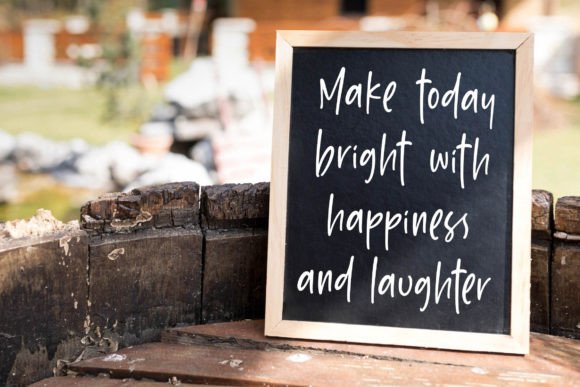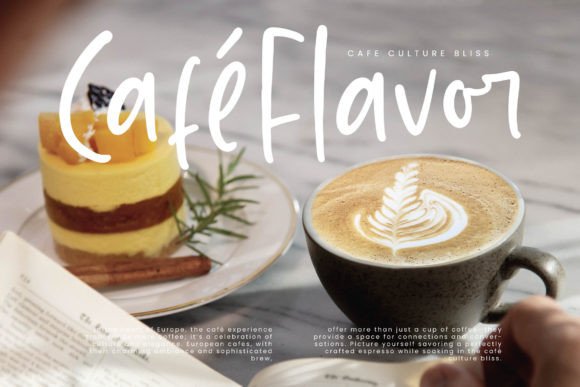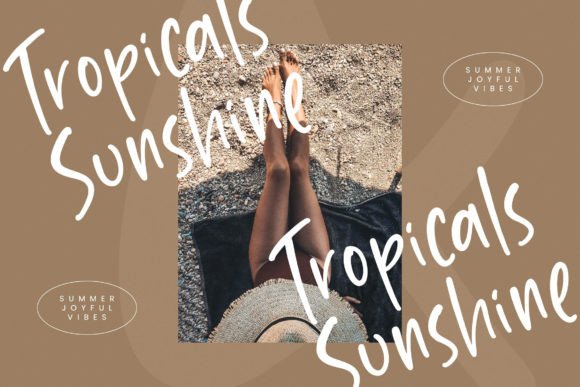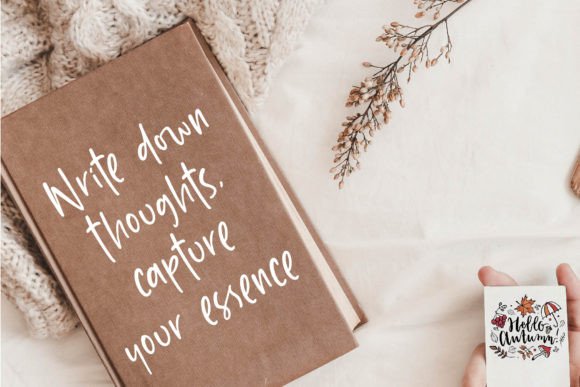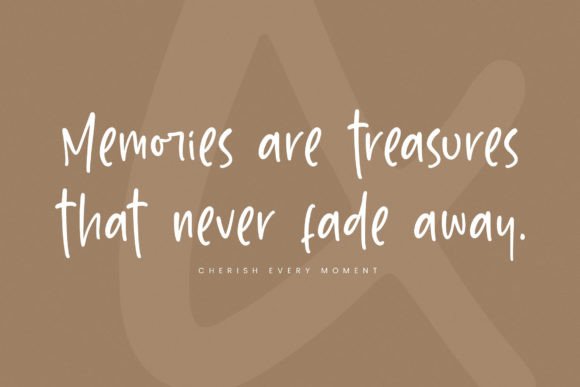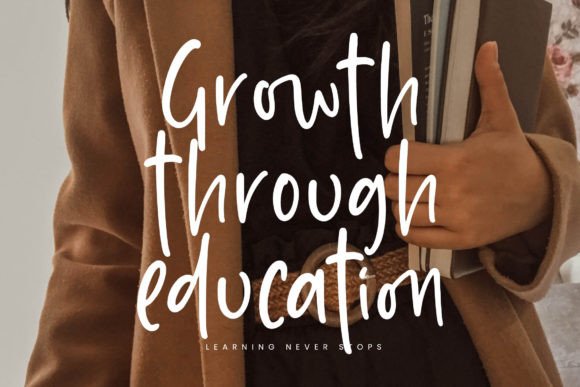
Introduction to Pearlight Notespage Font
As a designer, there’s nothing quite like the thrill of landing on the perfect font for a project. You’ve poured over countless options, and finally, you stumble upon that elusive combination of style and sophistication. For me, that moment happened when I discovered the Pearlight Notespage Font – a stunning handwritten font that adds a touch of elegance to any design.
Whether you’re working on a luxury brand’s logo, a bespoke invitation card, or a photography project, the Pearlight Notespage Font is a valuable addition to your design arsenal. With its high-quality, free download option and transparent background, you can seamlessly integrate it into your creative project. This versatile font is perfect for designers seeking a premium taste and a unique touch in their work.
Get ready to elevate your designs with the Pearlight Notespage Font – a game-changing resource that’s sure to leave a lasting impression on your clients and audience alike.
Key Features of Pearlight Notespage Font
- Features a unique and elegant design style, making it perfect for various creative projects, including digital art and print materials.
- Includes a range of font styles and weights, providing flexibility and versatility in design applications.
Honest Review: Pearlight Notespage Font
I recently stumbled upon the Pearlight Notespage Font while searching for a unique design resource for a creative project. The font’s free download and high quality immediately caught my attention.
- ✨ Unique and elegant design style
- ⚠️ Limited font weights and styles
- ⚠️ Not ideal for large blocks of text, as it can be difficult to read
Overall, I’m impressed with the Pearlight Notespage Font. While it may not be suitable for every design project, it’s perfect for adding a touch of elegance and sophistication to a creative project. The font’s high quality and transparent background make it a valuable resource for designers looking for a unique design element.
How to Use Pearlight Notespage Font
The Pearlight Notespage Font is a high-quality, free download that can elevate your creative project with its unique design style. This versatile font features a transparent background, making it perfect for various design applications.
Tips for Getting the Most Out of Pearlight Notespage Font
Experiment with different font sizes and styles to achieve the desired effect in your design. Combine the Pearlight Notespage Font with other design elements to create a visually appealing composition.
The Pearlight Notespage Font is ideal for various design projects, including:
- Print design and publishing
Alternatives to Pearlight Notespage Font
Pacifico is a beautiful, elegant script font that is perfect for creative projects that require a touch of sophistication. It’s great for use in logos, invitations, and other design elements where a high-quality, handwritten font is needed. Pacifico is a free download and can be used on both personal and commercial projects.
When compared to Pearlight Notespage Font, Pacifico has a more refined and polished look, making it ideal for projects that require a level of sophistication. While Pearlight Notespage Font has a more playful and whimsical feel, Pacifico is better suited for more formal and elegant designs.
Great Vibes is a modern and stylish script font that is perfect for designers looking for a high-quality, free download. It’s great for use in logos, posters, and other design elements where a creative and playful font is needed. Great Vibes has a transparent background, making it easy to use on any design resource.
When compared to Pearlight Notespage Font, Great Vibes has a more modern and edgy feel, making it ideal for projects that require a level of creativity and playfulness. While Pearlight Notespage Font has a more nostalgic and retro feel, Great Vibes is better suited for more contemporary and trendy designs.
Q: What is the recommended font size for the Pearlight Notespage Font?
The recommended font size for the Pearlight Notespage Font depends on the specific design application and project requirements. However, as a general guideline, designers can start with a font size between 12-24 points, adjusting as needed to achieve the desired visual impact. This allows for optimal readability and legibility, especially when used in combination with other design elements.